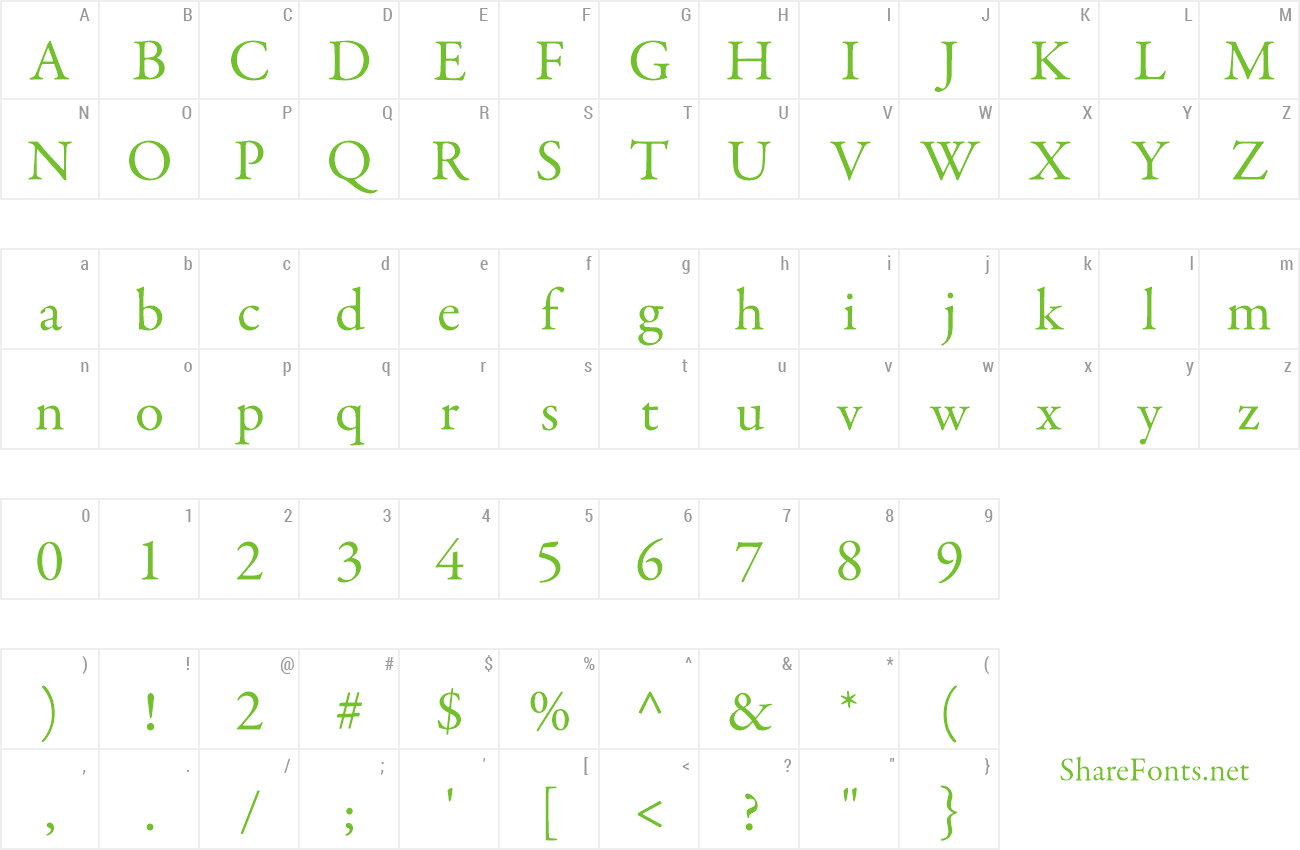
Garamond Premier Font
Garamond Premier Font - Web an adobe originals design, and adobe’s first historical revival, adobe garamond is a digital interpretation of the roman types of claude garamond and the italic types of. Web individual styles from $35.00. Web garamond premier pro regular: Web explore garamond premier designed by robert slimbach at adobe fonts. A serif typeface with 34 styles, available from adobe fonts for sync and web use. Complete family of 34 fonts: Garamond premier font family was designed by robert slimbach, claude garamond and published.
Web explore garamond premier designed by robert slimbach at adobe fonts. Complete family of 34 fonts: Garamond premier font family was designed by robert slimbach, claude garamond and published. Web garamond premier pro regular: A serif typeface with 34 styles, available from adobe fonts for sync and web use. Web individual styles from $35.00. Web an adobe originals design, and adobe’s first historical revival, adobe garamond is a digital interpretation of the roman types of claude garamond and the italic types of.
Web explore garamond premier designed by robert slimbach at adobe fonts. Garamond premier font family was designed by robert slimbach, claude garamond and published. Web individual styles from $35.00. Web an adobe originals design, and adobe’s first historical revival, adobe garamond is a digital interpretation of the roman types of claude garamond and the italic types of. Web garamond premier pro regular: Complete family of 34 fonts: A serif typeface with 34 styles, available from adobe fonts for sync and web use.
Web individual styles from $35.00. Web an adobe originals design, and adobe’s first historical revival, adobe garamond is a digital interpretation of the roman types of claude garamond and the italic types of. Web explore garamond premier designed by robert slimbach at adobe fonts. Complete family of 34 fonts: A serif typeface with 34 styles, available from adobe fonts for.
Complete family of 34 fonts: Garamond premier font family was designed by robert slimbach, claude garamond and published. Web individual styles from $35.00. Web garamond premier pro regular: Web explore garamond premier designed by robert slimbach at adobe fonts.
Garamond premier font family was designed by robert slimbach, claude garamond and published. Web an adobe originals design, and adobe’s first historical revival, adobe garamond is a digital interpretation of the roman types of claude garamond and the italic types of. Web individual styles from $35.00. Web explore garamond premier designed by robert slimbach at adobe fonts. Web garamond premier.
Web an adobe originals design, and adobe’s first historical revival, adobe garamond is a digital interpretation of the roman types of claude garamond and the italic types of. Web explore garamond premier designed by robert slimbach at adobe fonts. Web garamond premier pro regular: Web individual styles from $35.00. A serif typeface with 34 styles, available from adobe fonts for.
A serif typeface with 34 styles, available from adobe fonts for sync and web use. Web individual styles from $35.00. Web explore garamond premier designed by robert slimbach at adobe fonts. Web an adobe originals design, and adobe’s first historical revival, adobe garamond is a digital interpretation of the roman types of claude garamond and the italic types of. Web.
Web individual styles from $35.00. Web an adobe originals design, and adobe’s first historical revival, adobe garamond is a digital interpretation of the roman types of claude garamond and the italic types of. Complete family of 34 fonts: A serif typeface with 34 styles, available from adobe fonts for sync and web use. Garamond premier font family was designed by.
Garamond premier font family was designed by robert slimbach, claude garamond and published. Complete family of 34 fonts: Web garamond premier pro regular: Web explore garamond premier designed by robert slimbach at adobe fonts. Web an adobe originals design, and adobe’s first historical revival, adobe garamond is a digital interpretation of the roman types of claude garamond and the italic.
Web an adobe originals design, and adobe’s first historical revival, adobe garamond is a digital interpretation of the roman types of claude garamond and the italic types of. Complete family of 34 fonts: Web garamond premier pro regular: Web individual styles from $35.00. Web explore garamond premier designed by robert slimbach at adobe fonts.
Web individual styles from $35.00. A serif typeface with 34 styles, available from adobe fonts for sync and web use. Garamond premier font family was designed by robert slimbach, claude garamond and published. Web an adobe originals design, and adobe’s first historical revival, adobe garamond is a digital interpretation of the roman types of claude garamond and the italic types.
Web Explore Garamond Premier Designed By Robert Slimbach At Adobe Fonts.
A serif typeface with 34 styles, available from adobe fonts for sync and web use. Web individual styles from $35.00. Web an adobe originals design, and adobe’s first historical revival, adobe garamond is a digital interpretation of the roman types of claude garamond and the italic types of. Complete family of 34 fonts:
Web Garamond Premier Pro Regular:
Garamond premier font family was designed by robert slimbach, claude garamond and published.